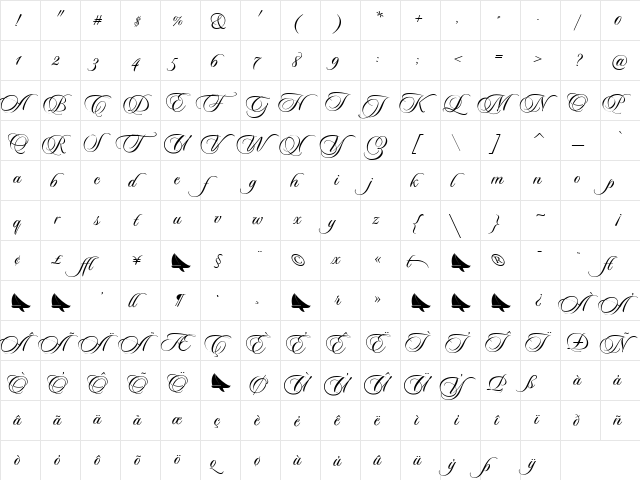
Sloop ScriptTwo
Design Context for Sloop Typeface
Sloop flows with the natural rhythm of handwritten lettering, making it ideal for designs that call for warmth and personal expression.
Font Pairing: Combine Sloop with a simple geometric sans for maximum contrast — the tension between flowing curves and clean structure is a classic typographic pairing.
Pro Tip: Pair Sloop with a clean sans-serif for supporting text. The contrast between fluid script and geometric structure creates an elegant typographic hierarchy.